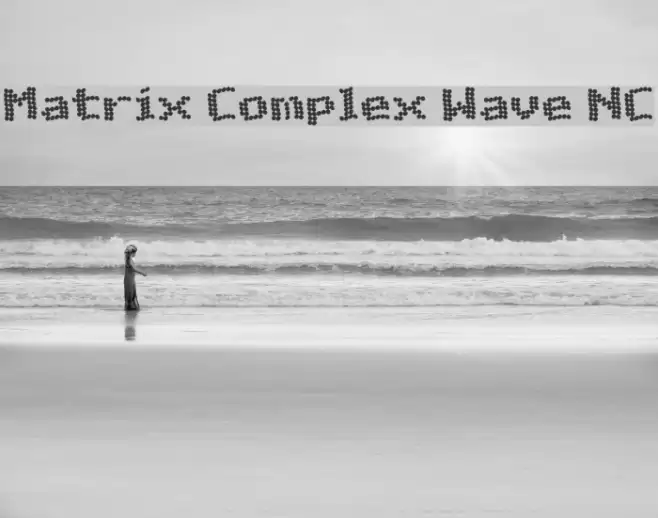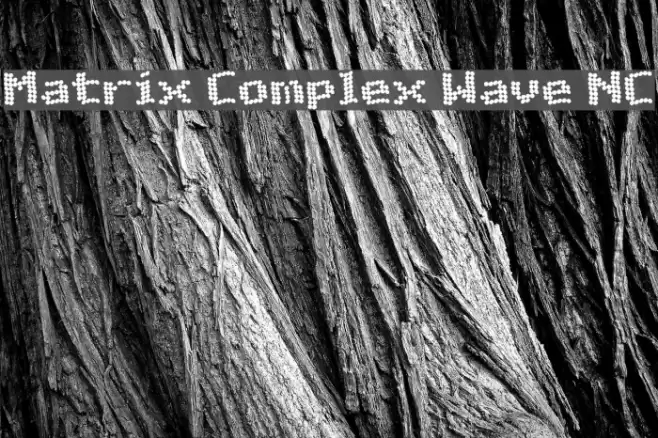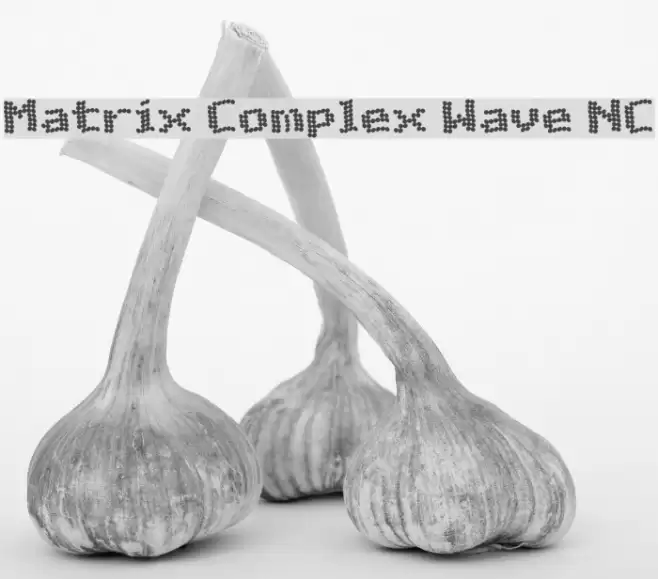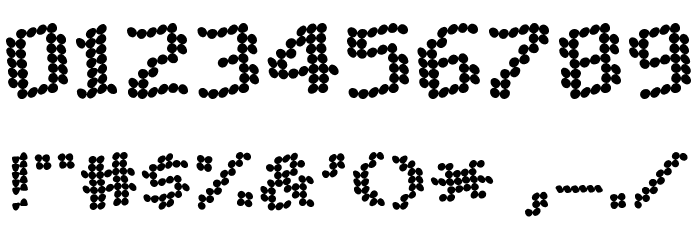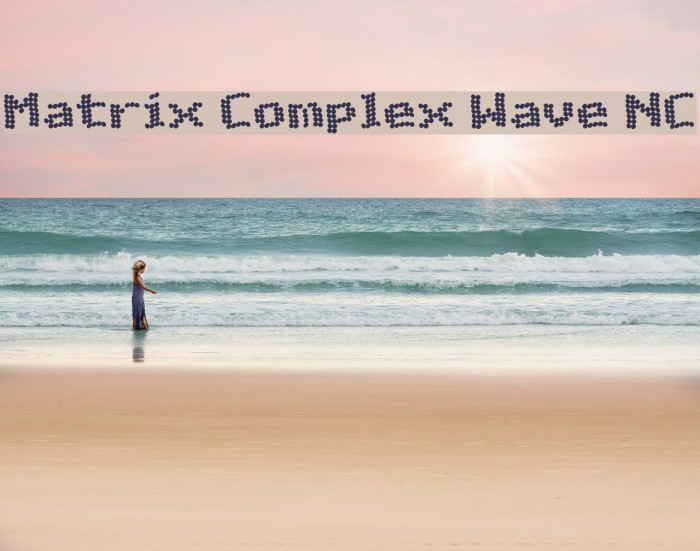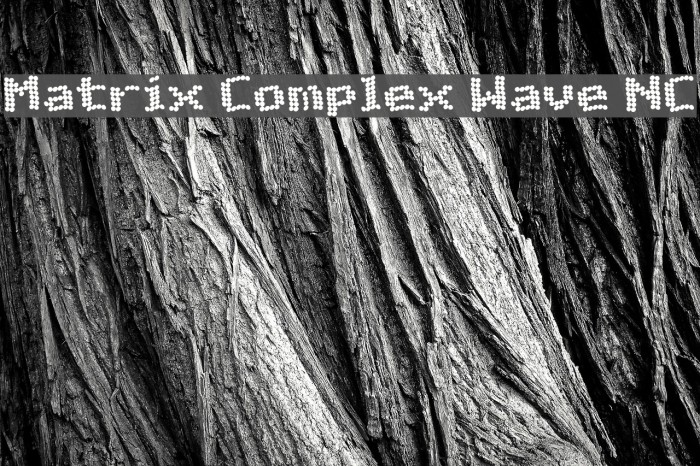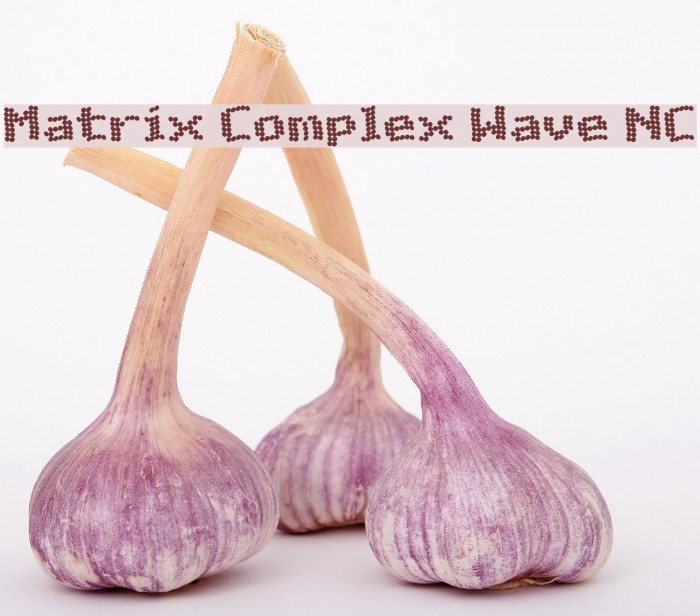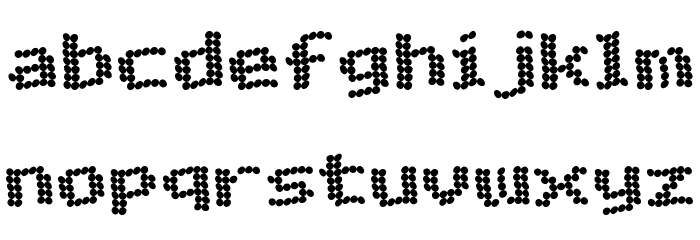
Matrix Complex Wave NC Font
Matrix Complex Wave NC Description
This font features a unique design composed of small, evenly spaced dots forming each character. The overall appearance is both modern and playful, with a digital or pixelated aesthetic that stands out. The uppercase and lowercase letters maintain a consistent style, with rounded edges and a uniform dot size, creating a cohesive look. Numbers and special characters follow the same design principles, ensuring a harmonious visual experience. The font's distinct style makes it ideal for creative projects that require a bold and unconventional typeface.
A modern, dot-based font with a playful, digital aesthetic from Futuristic fonts.
- Proposed Projects: Ideal for digital art, tech-themed designs, posters, and creative branding projects.